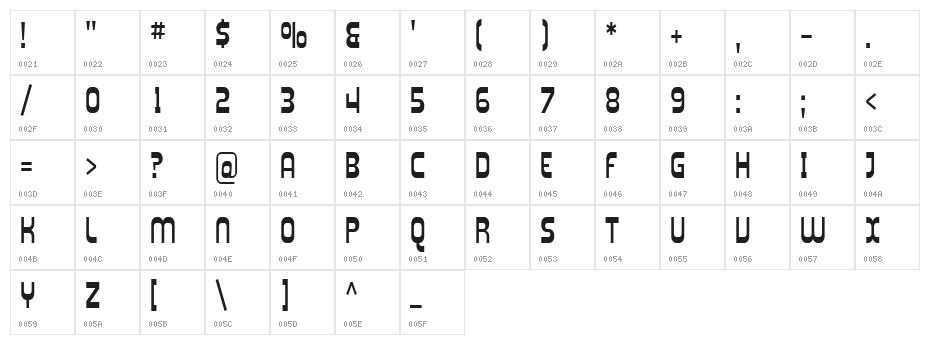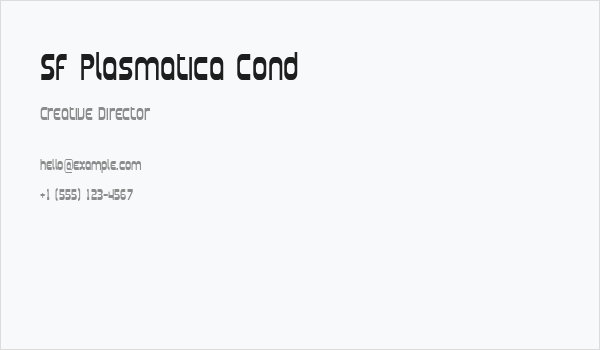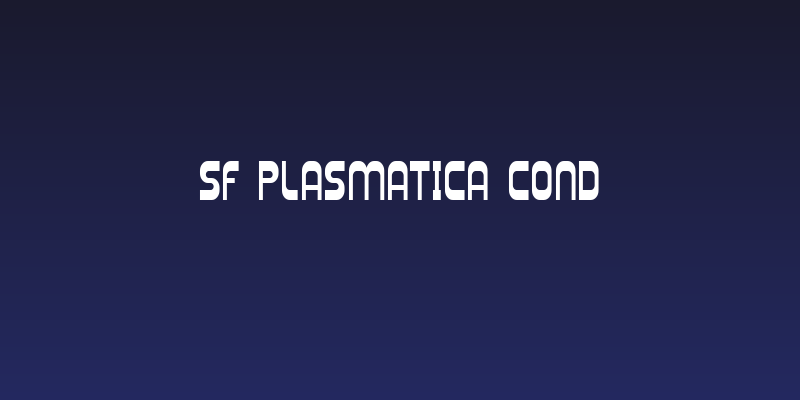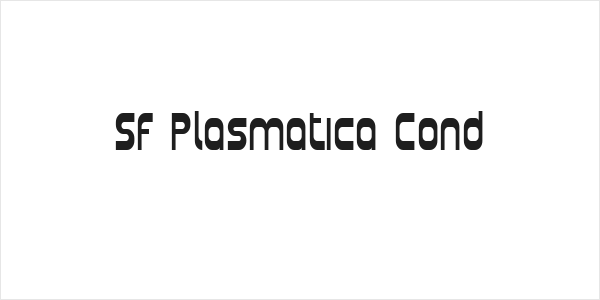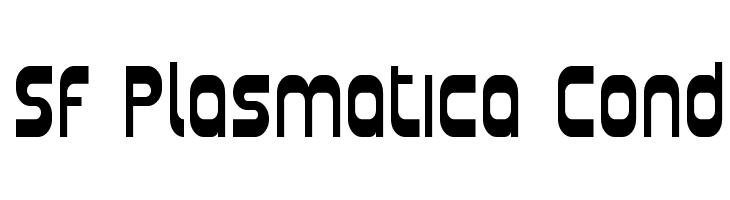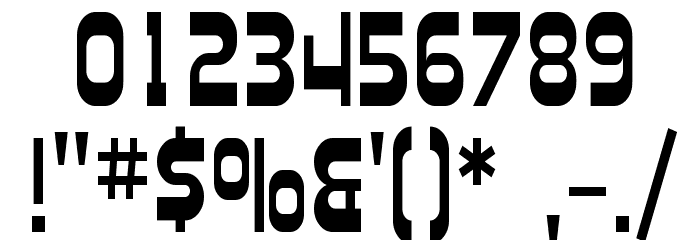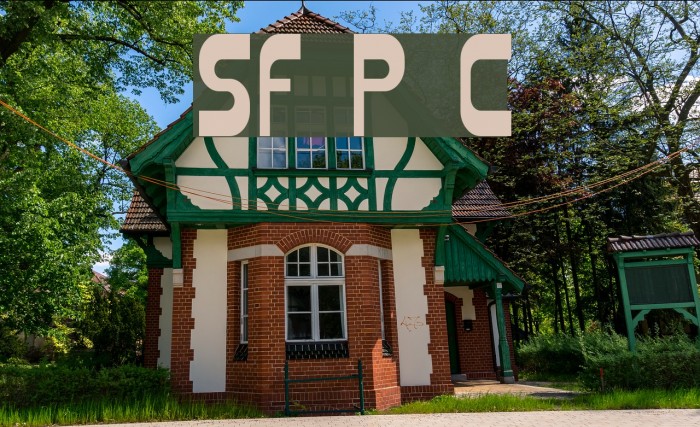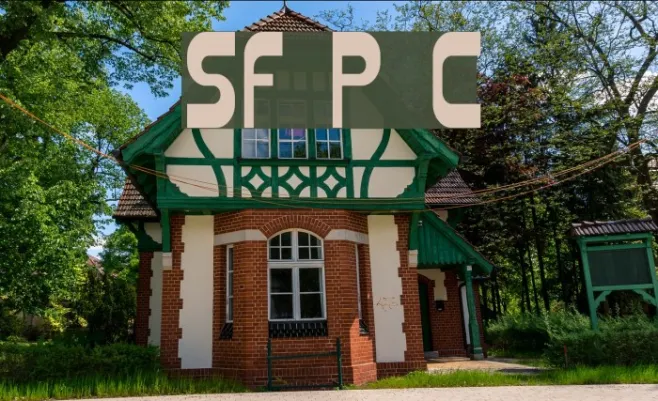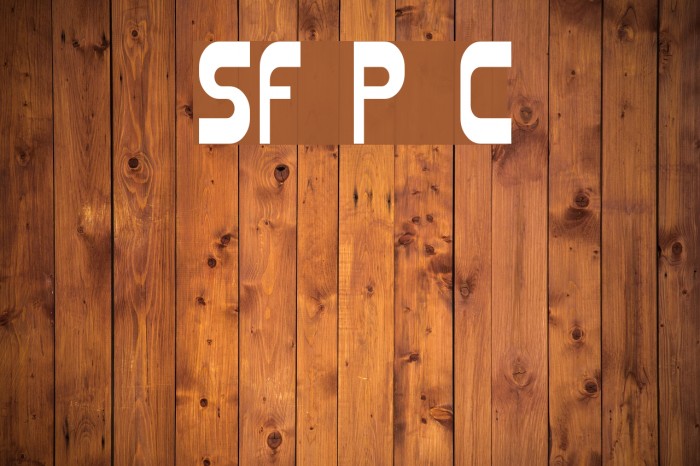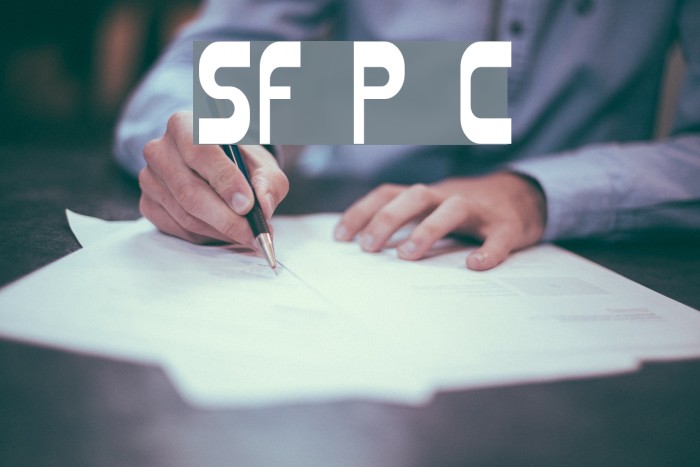
SF Plasmatica Cond Font
SF Plasmatica Cond Description
This font features a bold, futuristic design with rounded edges and a geometric structure. The characters are uniformly wide, giving it a monospaced appearance, although it is not strictly monospaced. The uppercase letters are tall and commanding, while the lowercase letters maintain a consistent height that complements the uppercase. Numbers and special characters are designed to match the overall aesthetic, ensuring a cohesive look across all text. The font's style is modern and tech-inspired, making it suitable for digital and print media that require a contemporary and sleek appearance.
| Proposed Projects | Ideal for technology branding, digital interfaces, video game design, and modern advertising. |